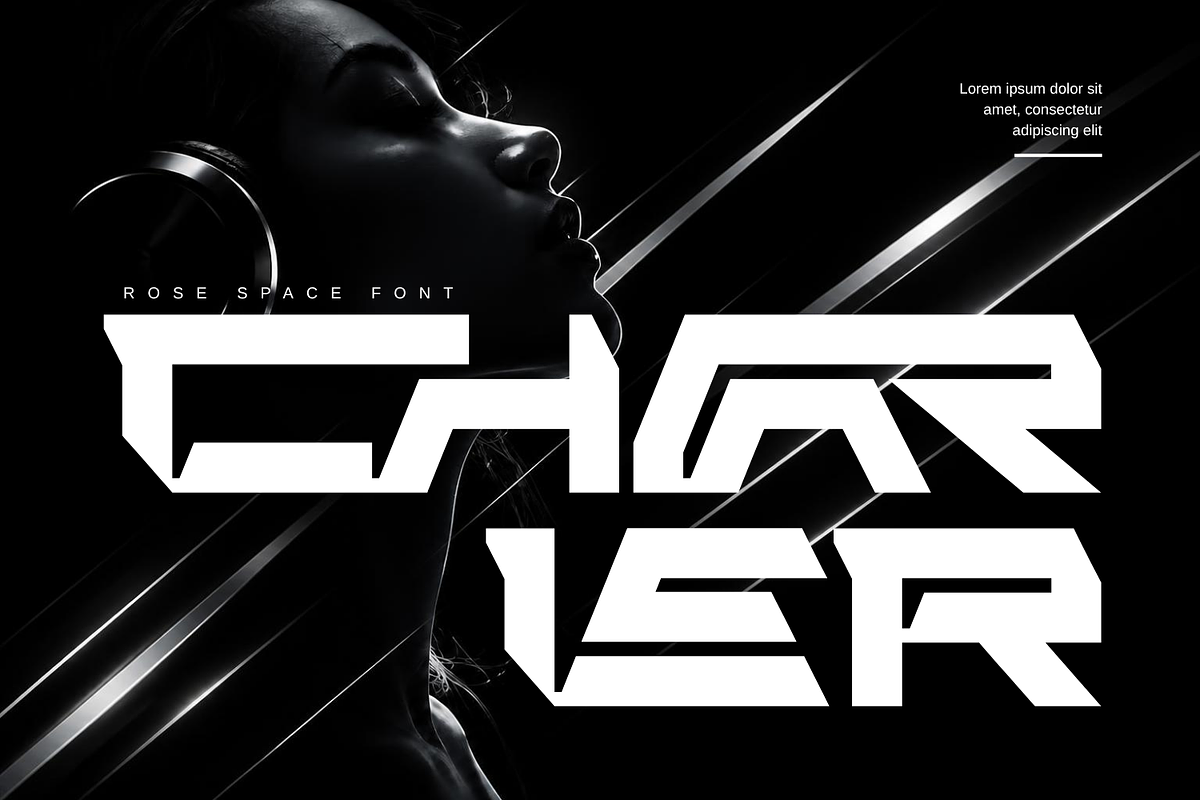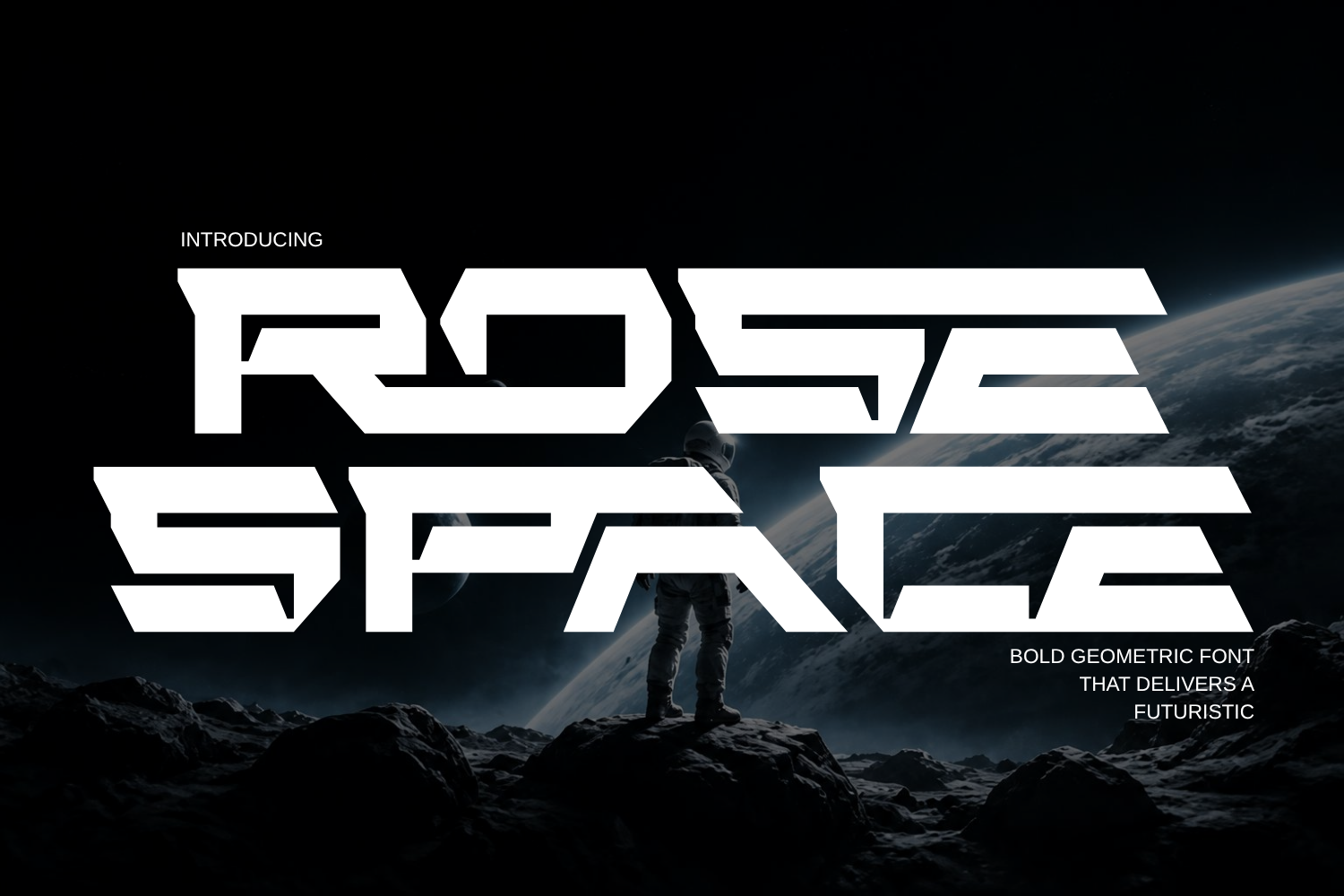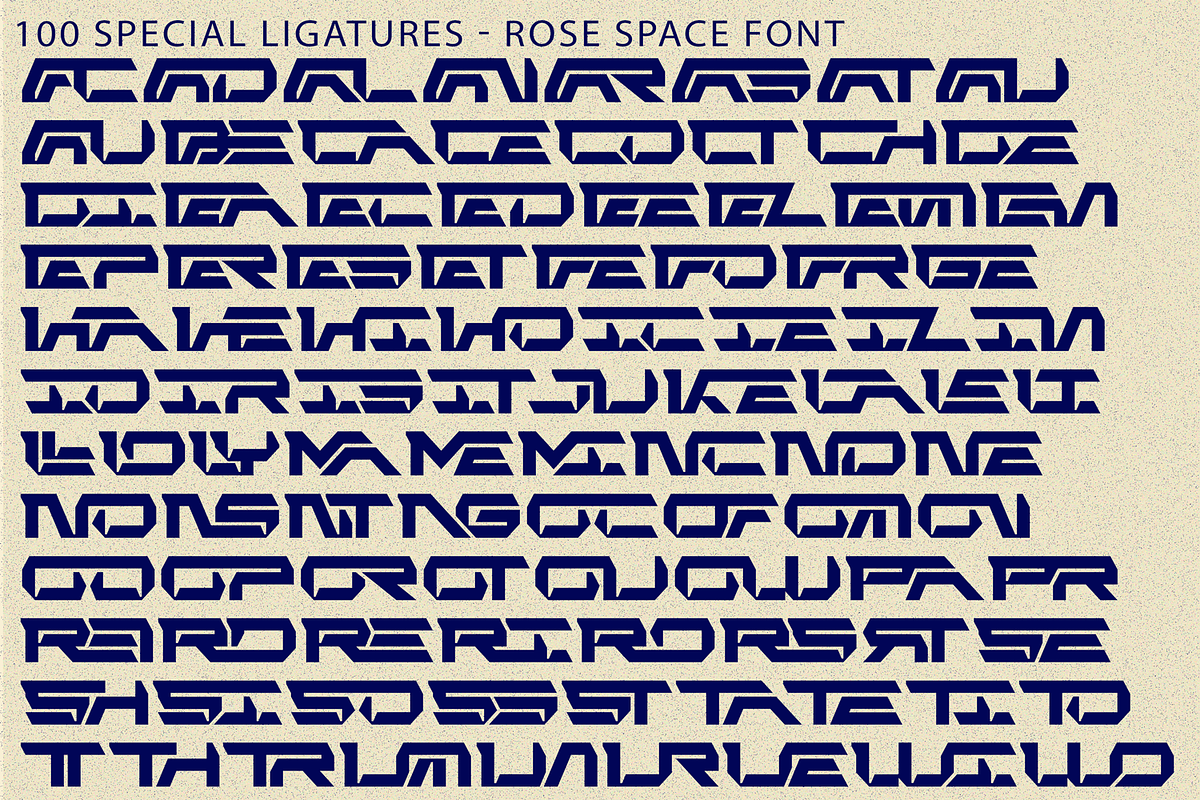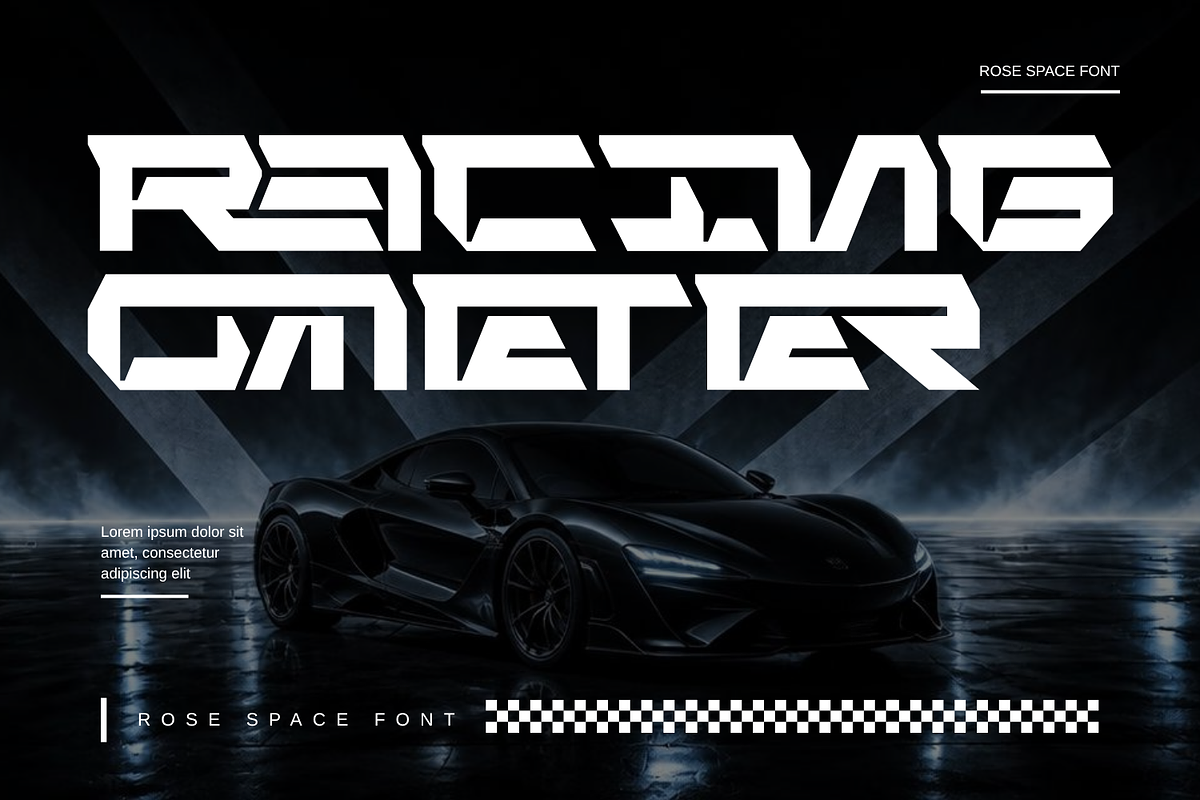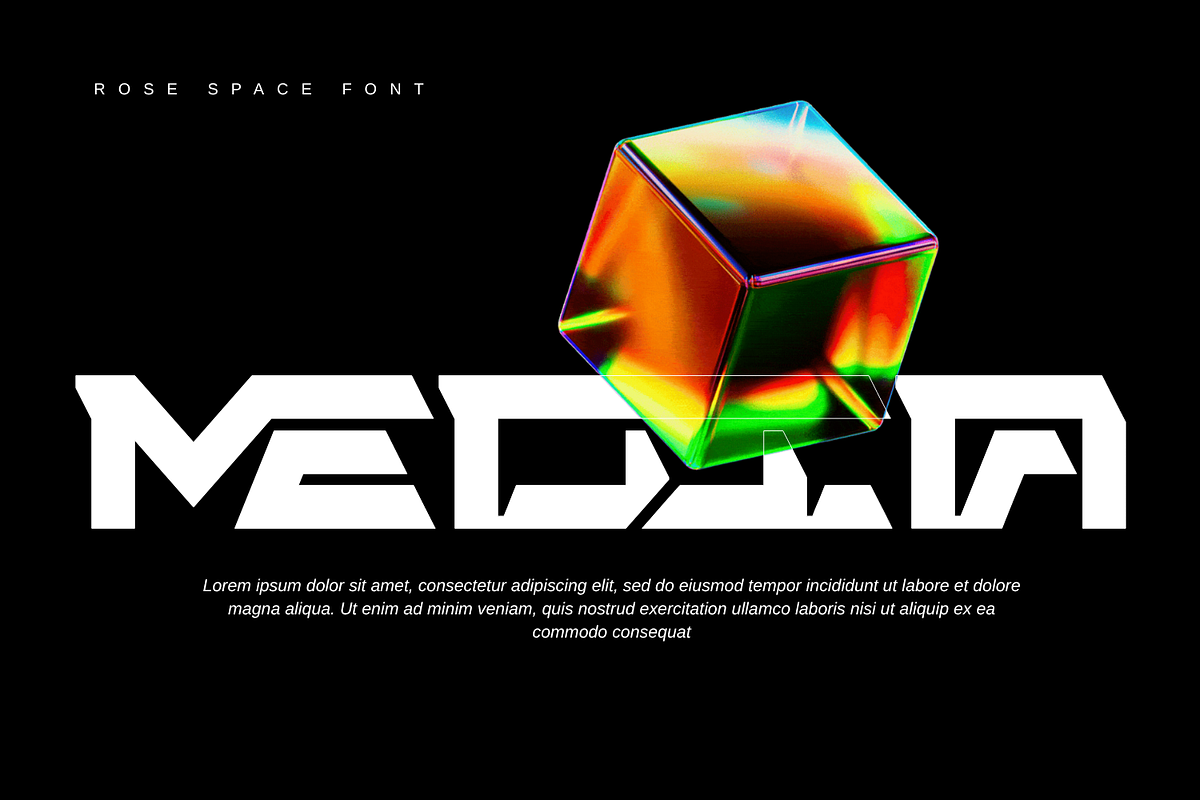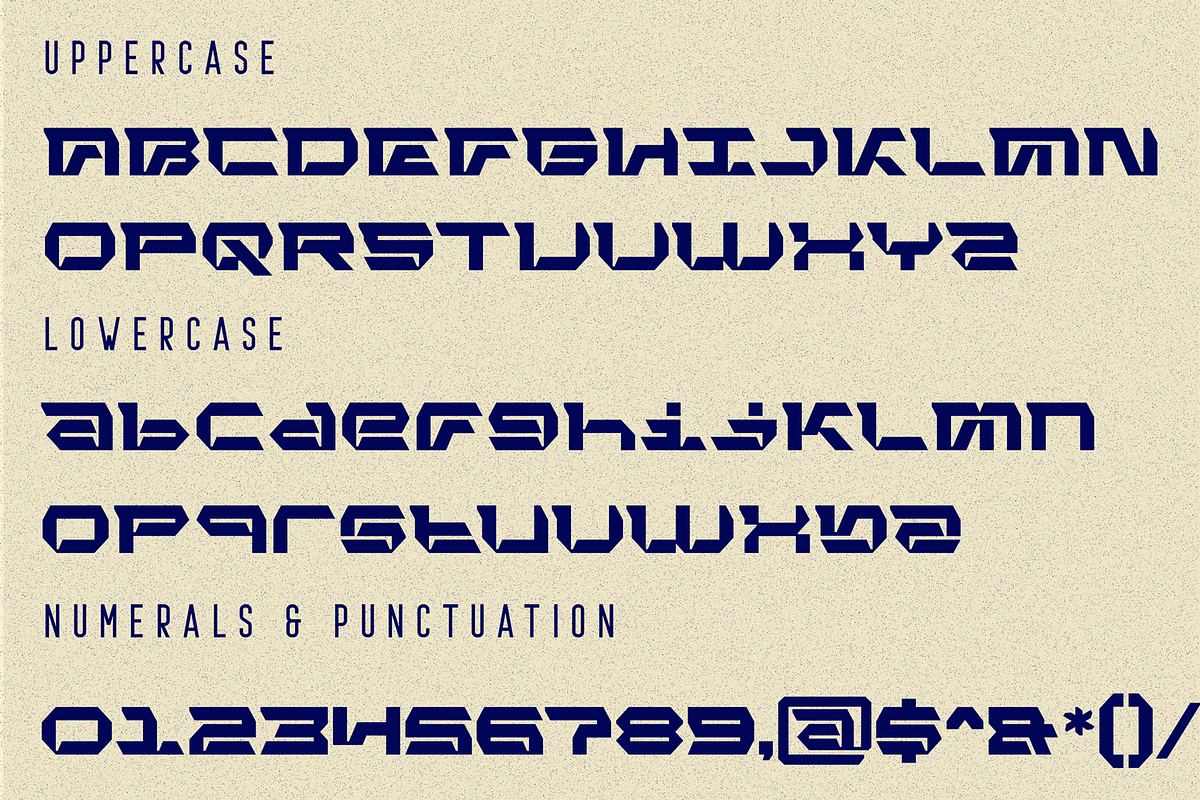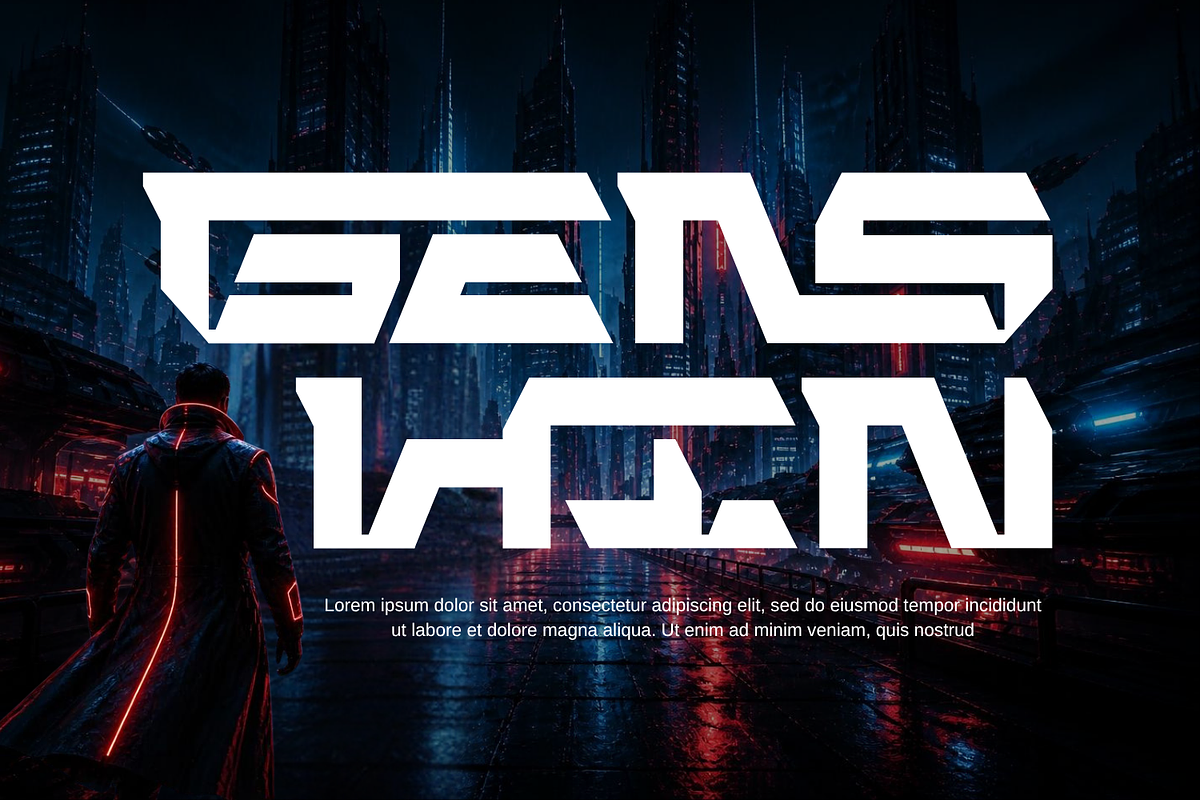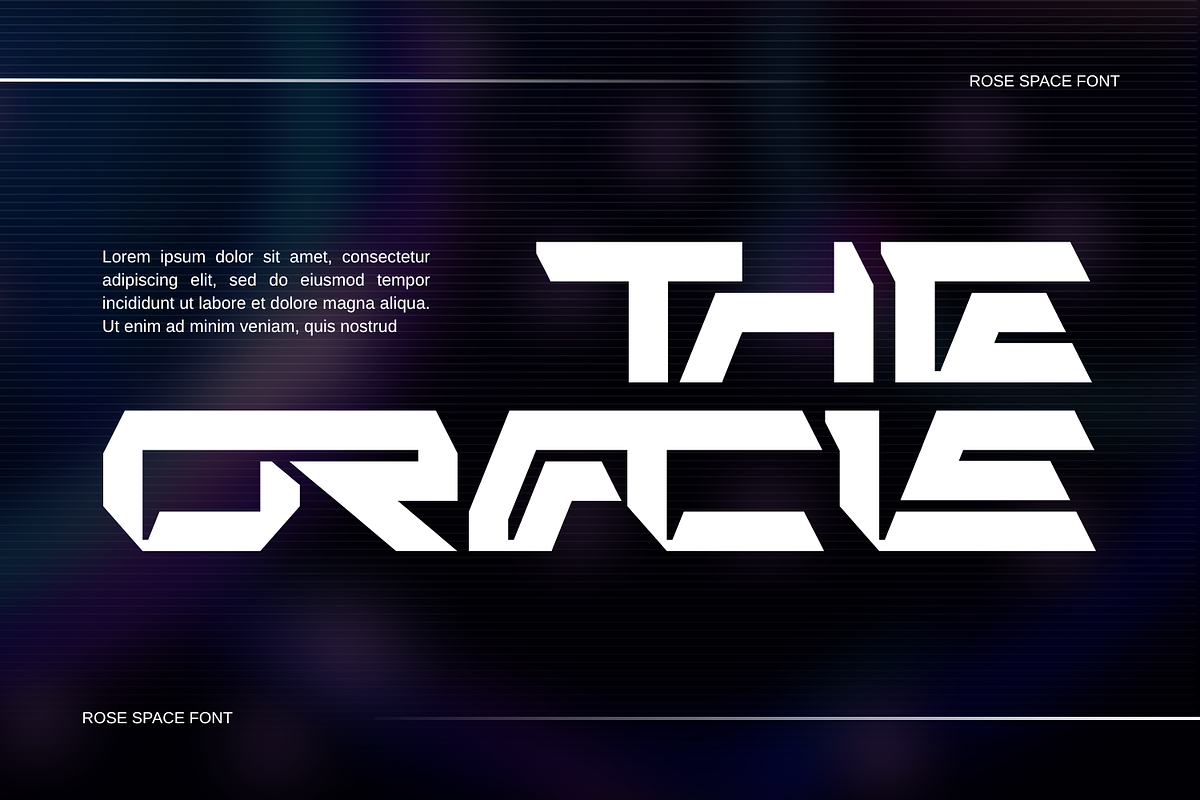
Rose Space - Futuristic Font
Rose Space - Futuristic Font – Futuristic Sci-Fi Techno & Angular Aerospace Display Font, is a high-octane futuristic display typeface engineered at the dynamic intersection of aerospace geometry, sci-fi technology, and heavy mecha aesthetics. Defined by its ultra-wide extended stance, sharp chamfered cutouts, and aerodynamic diagonal slashes, this font commands instant visual authority across modern digital landscapes.
Crafted to give headlines and display graphics a commanding, high-tech presence, Rose Space delivers an unmistakable sense of speed, power, and galactic exploration. Its heavy mechanical block proportions and precision-angled geometry make it the definitive typographic choice for esports team brandings, sci-fi gaming titles, futuristic movie posters, automotive graphics, techwear apparel design, and high-concept logos.
🔤Features:
Uppercase & Lowercase Letters
Around 100 Special Ligatures & Alternates
Accented Characters for multilingual support
🔤About 100 ligatures combined with Stylistic Alternates Font:
ac ad al an ar as at au av be ca ce ch co ct de di ea ec ed ee el em en ep er es et fe fo fr ge ha he hi ho ie ic il in io ir is it ju ke la le li ll lo ly ma me mi nc nd ne ng no nt ns oc of om on oo op or ot ou ow pa pr ra rd re ri ro rs rt se sh si so ss st ta te th ti to tr tt um un ur ve wi wo